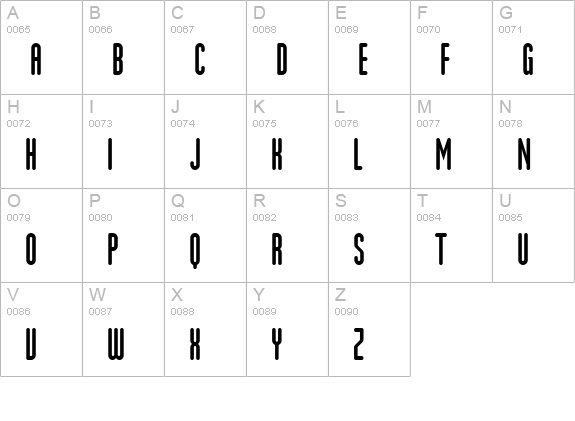
MartenCyrG-Regular is the standard, neutral variant in the MartenCyrG typeface family \xE2\x80\x94 well suited to general body text, paragraphs, and standard typographic work.
MartenCyrG-Regular font is a versatile typeface that blends elegance with a touch of modernity. With its clean lines and subtly rounded edges, this font exudes sophistication and professionalism, making it suitable for a wide range of design projects. This font's unique character lies in its ability to effortlessly adapt to various contexts, whether it's used for branding, editorial design, or web design. Its balanced proportions and legible letterforms ensure optimal readability, even in smaller sizes. One of the most remarkable aspects of MartenCyrG-Regular font is that it is available for free! Yes, you read that right. This font is freely accessible to download at FontsMarket.com. This means that you can enhance your design projects without having to spend a penny on fonts. Downloading MartenCyrG-Regular font from FontsMarket.com is a simple and hassle-free process. Once you have this font in your collection, you'll find yourself reaching for it time and time again. Its versatility and timeless appeal make it a valuable asset for any designer. What sets MartenCyrG-Regular font apart from others is its ability to effortlessly convey a sense of professionalism, whether it's used in corporate materials, logo designs, or even personal projects. Its clean and modern aesthetic ensures that your message is delivered with style and impact. So, why wait? Head over to FontsMarket.com and get your hands on the MartenCyrG-Regular font today. With its impressive versatility and the fact that it's available for free, this font is a must-have for any designer looking to add a touch of elegance to their work.